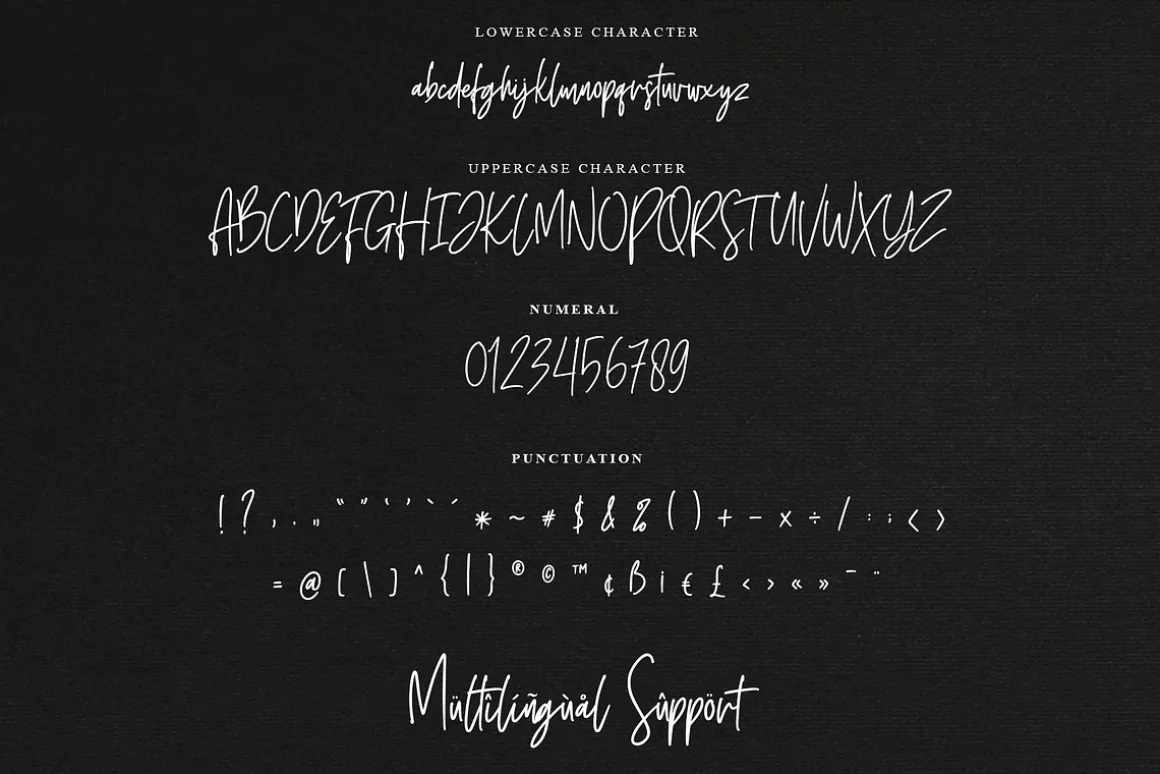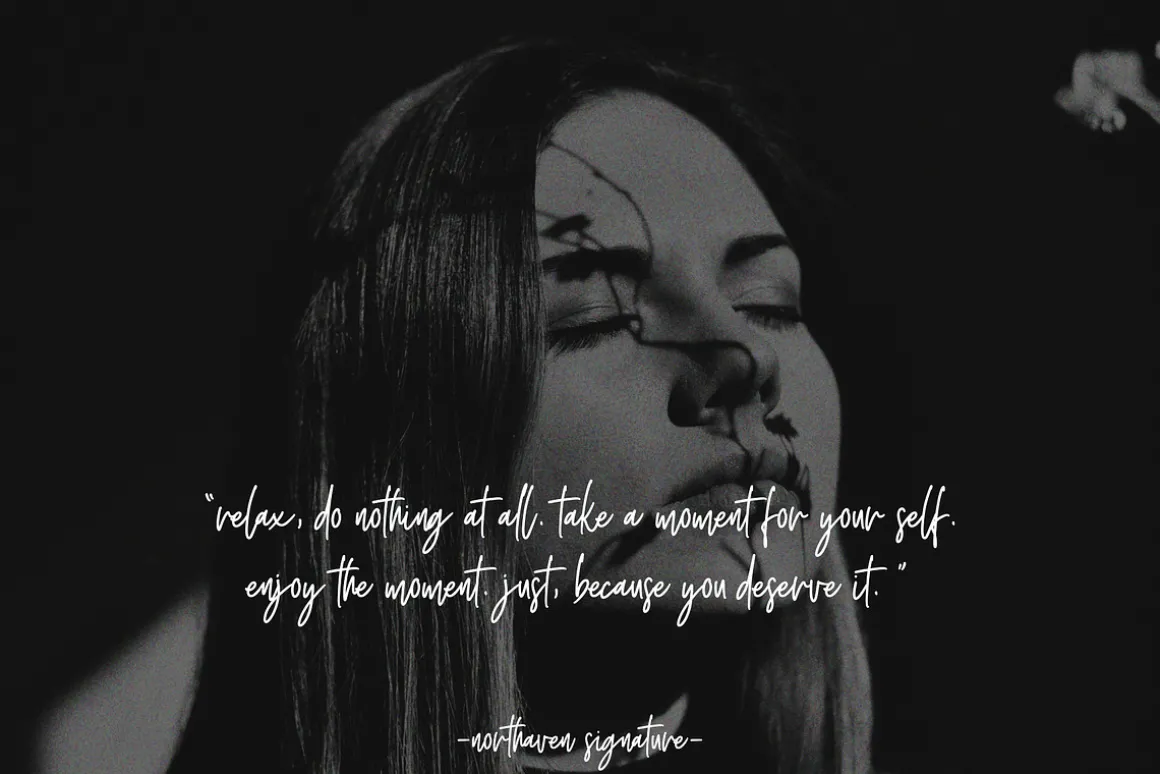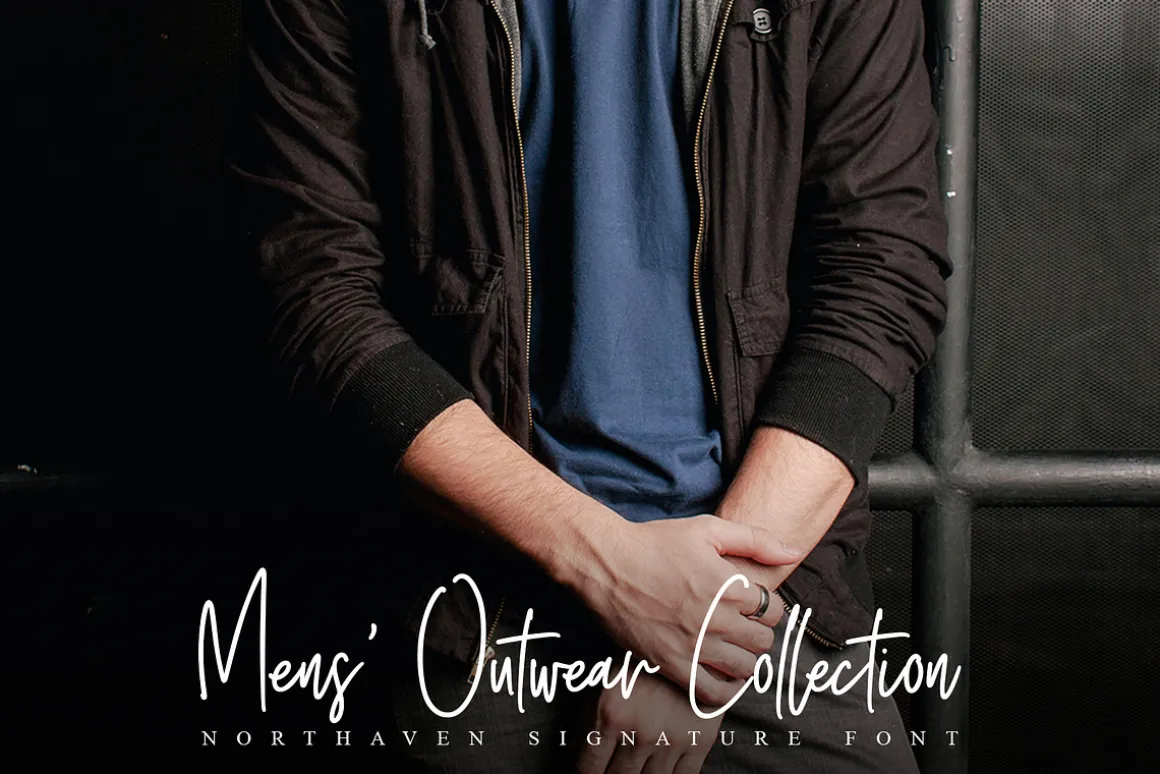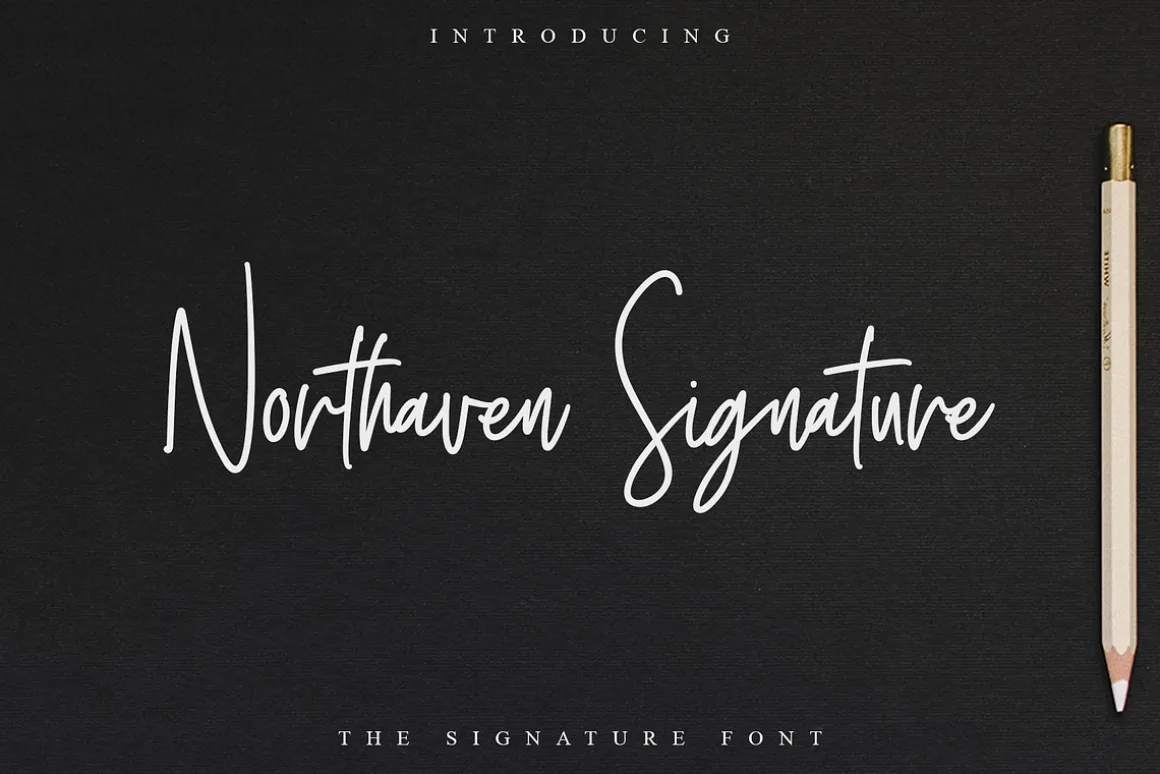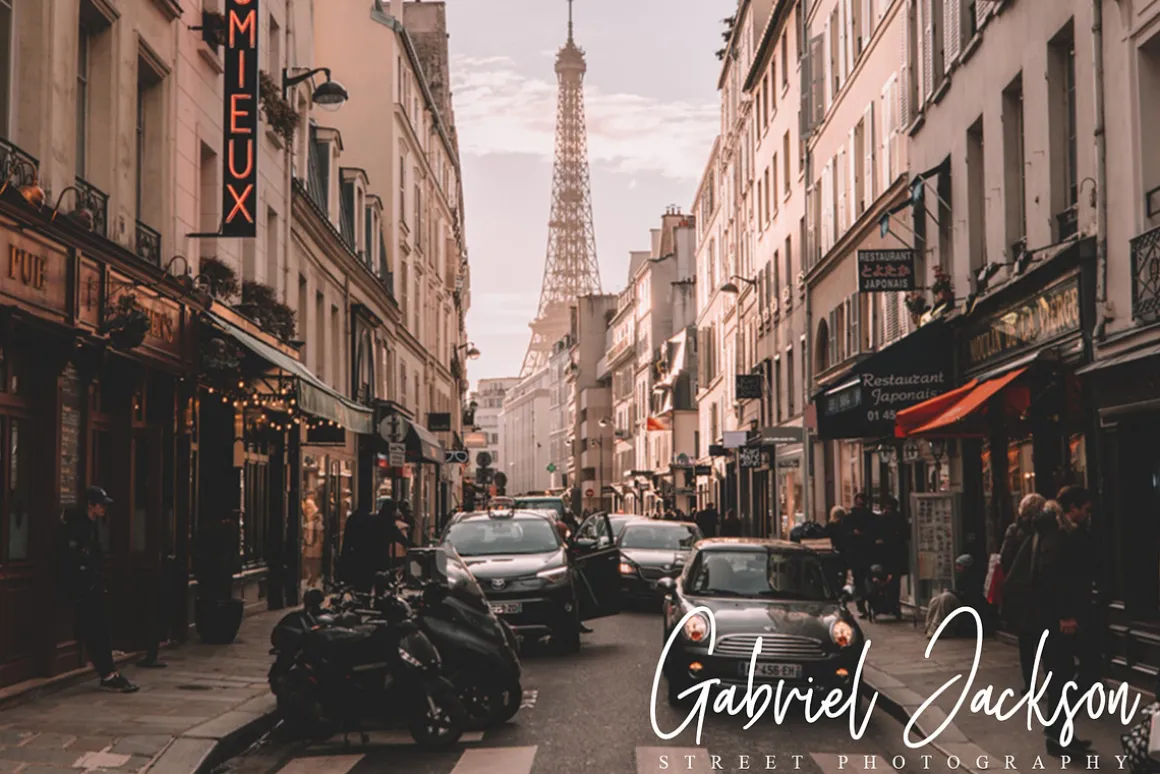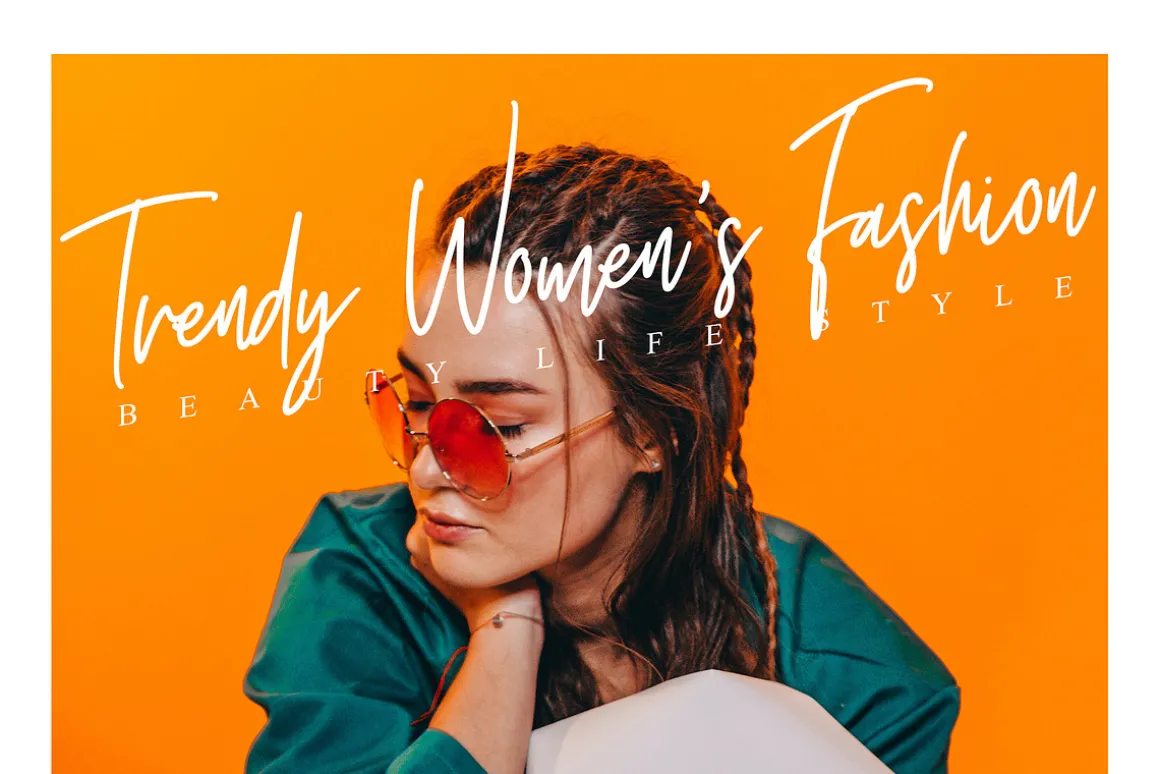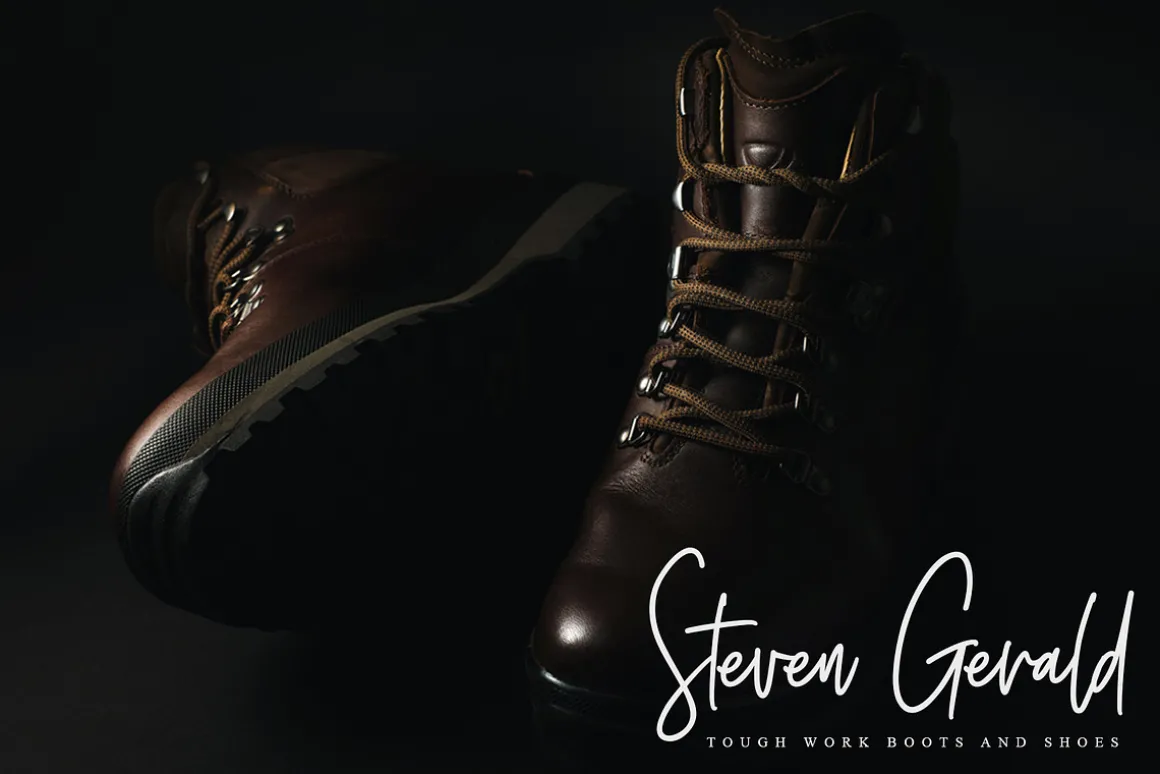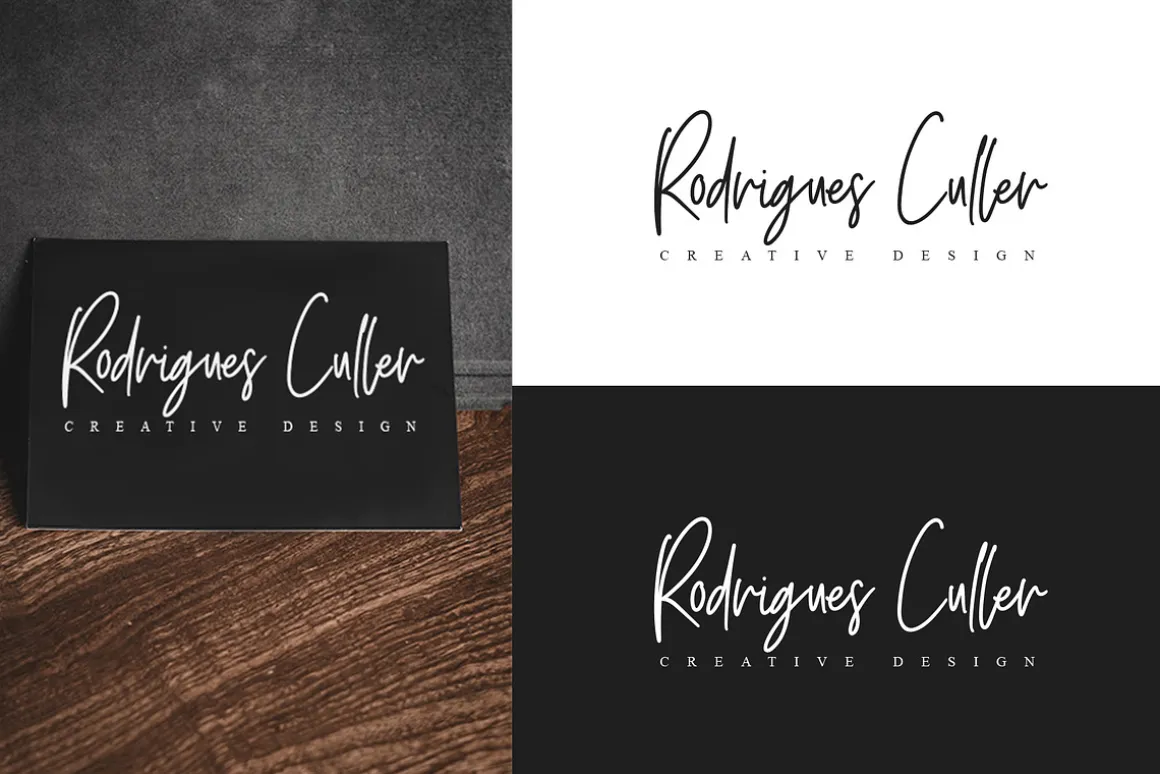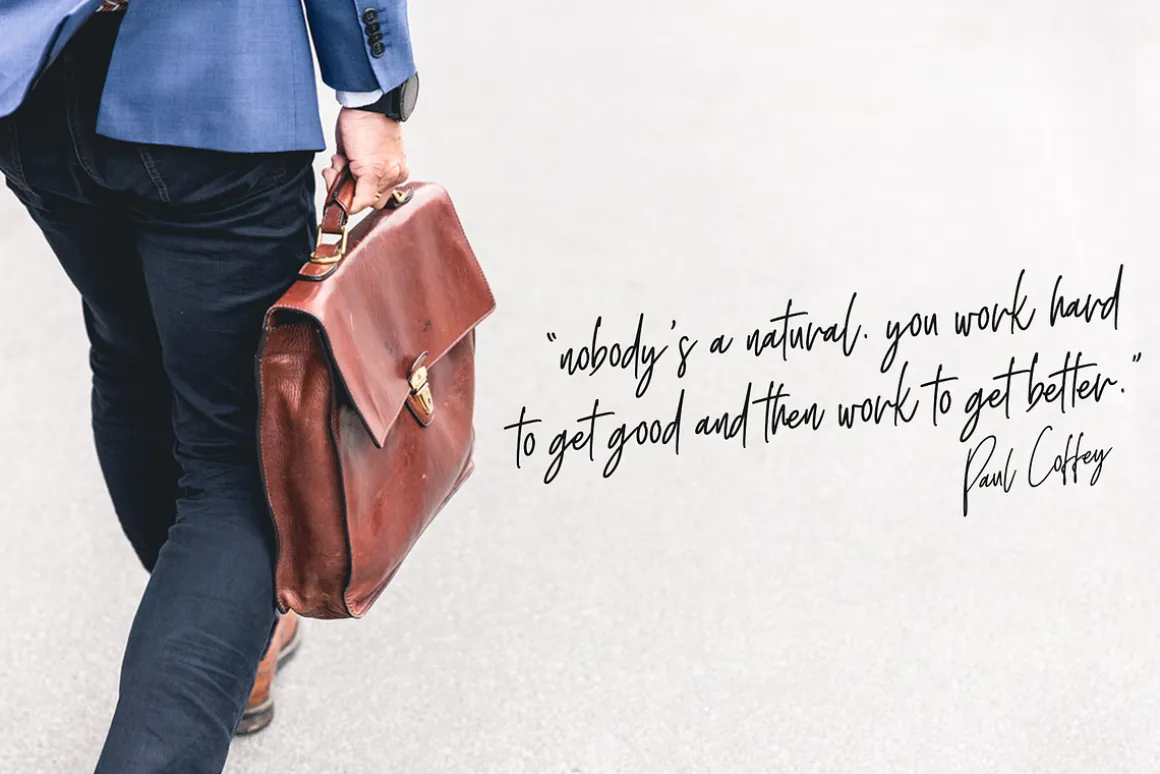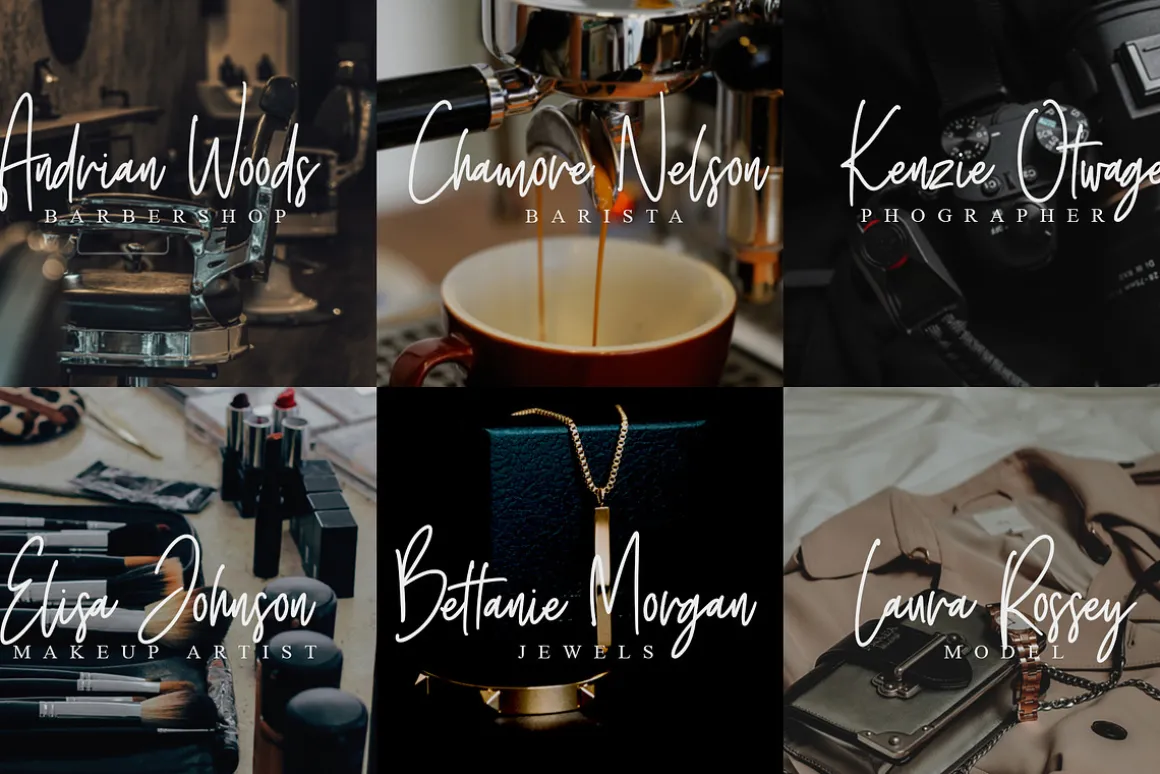
Northaven Signature is a signature script font. This font is neatly crafted and highly detailed, so it make it elegant for your design. Good for signature logo, watermark your picture, quotes, magazine or anything else your heart desires!